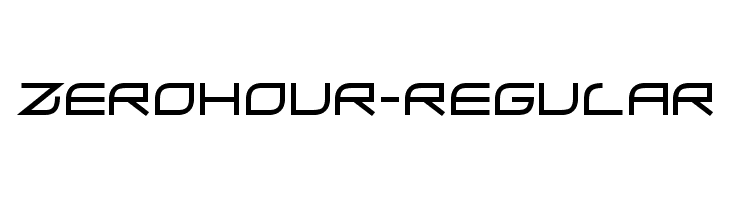
A modern, geometric font with clean lines and a structured, monospaced appearance.
A bold, geometric font with sharp angles and a futuristic style.
A futuristic, geometric font with sharp, angular letterforms.
A futuristic, geometric font with angular and sleek letterforms.